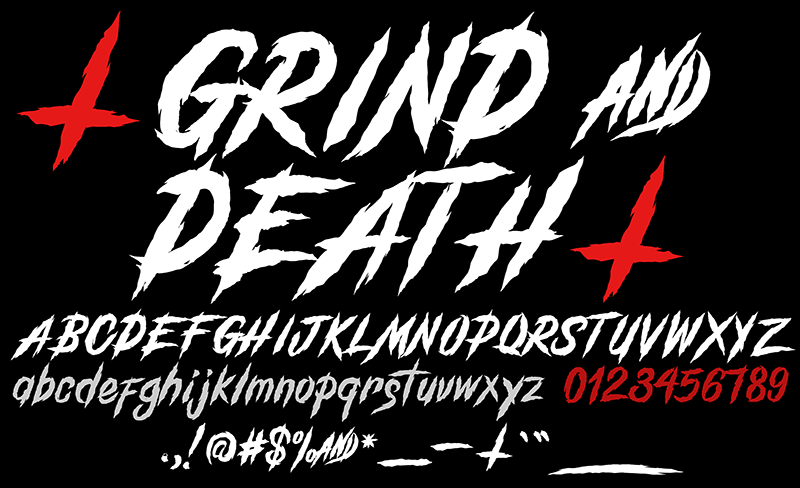
Grind And Death Font
I’ve been listening to some great Deathcore & Heavy Music lately.. Inspiring me to create this brutal font..
Sample Text: +(GRIND & DEATH)+